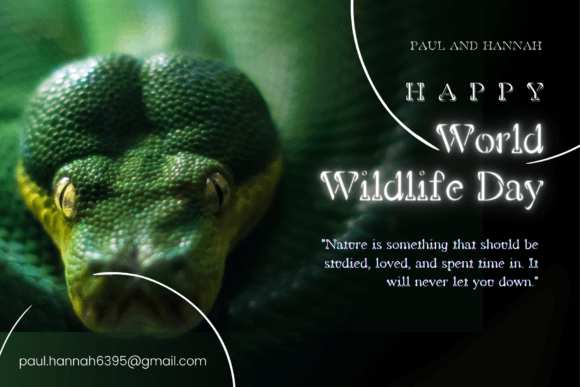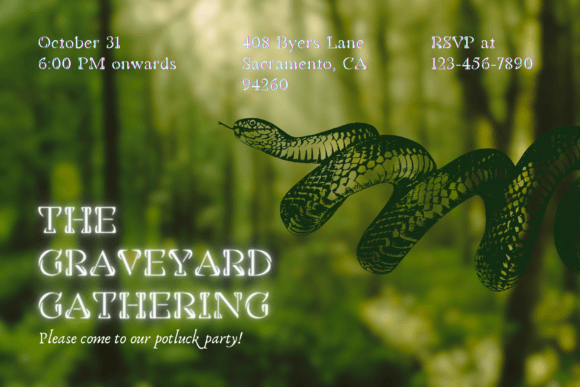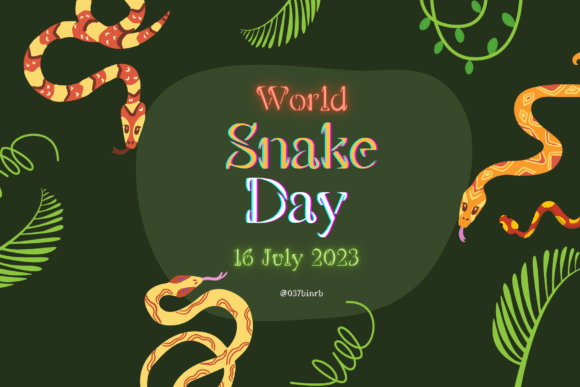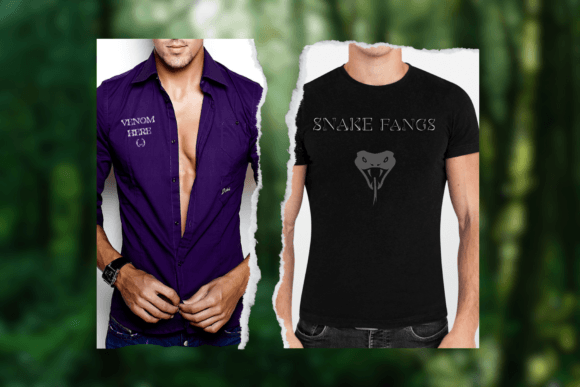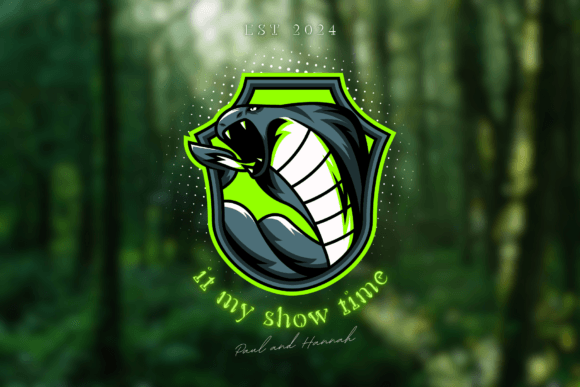
Unleash Your Creativity with Snake Fangs Font
Have you ever stared at a blank canvas, waiting for the perfect design to emerge? For many creatives, it’s the moment when inspiration strikes and the imagination runs wild. For designers, this moment can be a game-changer, and the right font can make all the difference. Introducing the Snake Fangs Font, a stunning design resource that adds a touch of sophistication and danger to your creative project.
With its unique, curved blades and venom-coated design, the Snake Fangs Font is inspired by the majestic fangs of snakes. This high-quality font is a must-have for designers who want to add an extra layer of excitement to their work. Plus, with a transparent background, you can easily integrate it into your design without any hassle. Whether you’re working on a free download or a paid project, the Snake Fangs Font is a valuable addition to your design arsenal.
Key Features of Snake Fangs Font
- Unique, hand-drawn style with intricate details, ideal for adding a personal touch to designs.
Honest Review: Snake Fangs Font
As a designer, I was excited to dive into the Snake Fangs Font and see if it would be a valuable addition to my design resources. After exploring the font, I have to say that I was impressed with its unique style and versatility.
- ✨ Unique style that sets it apart from other fonts
- ⚠️ Limited character set, which may be a problem for designers who need to use the font for extended periods
- ⚠️ Not suitable for all design projects, as the font’s bold style may be overwhelming in some contexts
Overall, I’m impressed with the Snake Fangs Font, but I do think it’s essential to consider its limitations before using it in a design project. If you’re looking for a unique font to add some flair to your creative project, this could be a great option – just be sure to check the character set and suitability for your specific needs.
Common Use Cases for Snake Fangs Font
The Snake Fangs Font is ideal for creative projects, including:
- Logo designs with a bold, edgy look
- Posters and flyers with a high-contrast design
- Social media graphics with a unique, eye-catching font